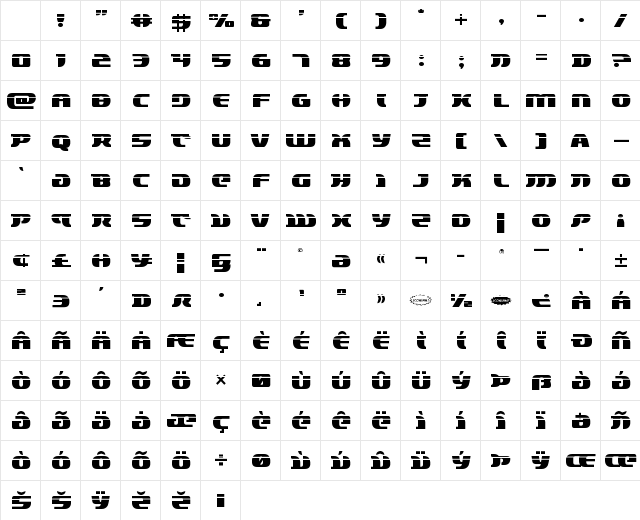
Lord of the Sith Laser Regular
Design Context for Lord of the Sith Laser
Lord of the Sith Laser is a composed and adaptable typeface that performs quietly and consistently across a wide range of design contexts.
Pro Tip: Use Lord of the Sith Laser in both headline and body roles to test its range before committing to a single application.